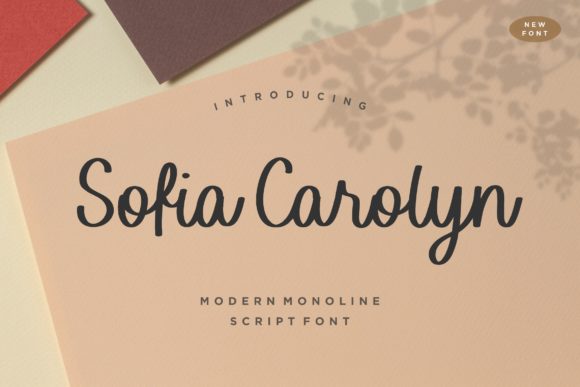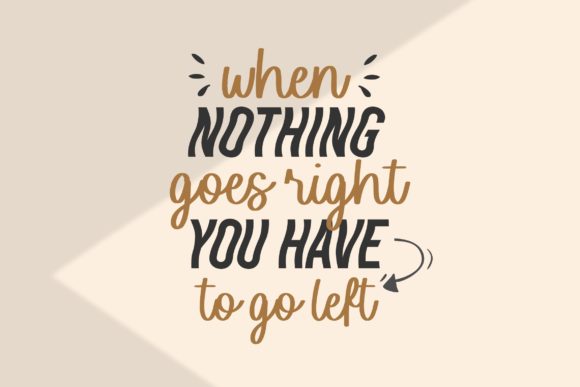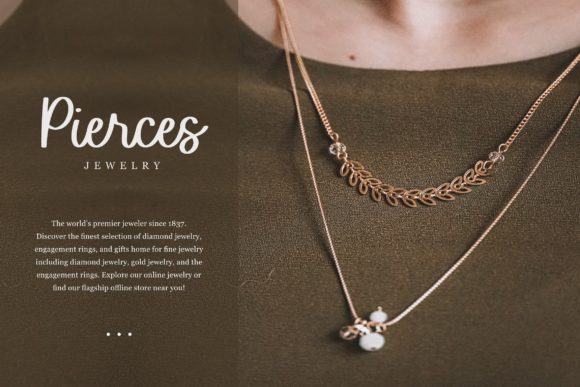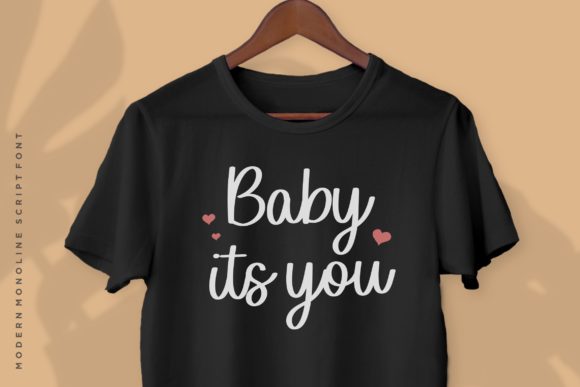
About Sofia Carolyn Font
Introducing “Sofia Carolyn,” a delicate and elegant handwritten font that brings a touch of sophistication to your designs. With its flowing letterforms and balanced characters, Sofia Carolyn is a versatile font that can be used in a wide range of projects.
The graceful curves and smooth lines of Sofia Carolyn exude elegance and refinement. Whether you’re designing wedding invitations, greeting cards, branding materials, or social media graphics, this font adds a touch of beauty and charm to any design.
The well-balanced characters of Sofia Carolyn ensure readability and legibility, making it suitable for both headlines and body text. It maintains a sense of clarity while retaining its delicate and flowing style, allowing your message to shine through.
Sofia Carolyn’s versatility shines through in its ability to match various design themes and styles. Whether you’re aiming for a romantic and whimsical look or a more sophisticated and modern aesthetic, this font adapts seamlessly to your creative vision.
The versatility of Sofia Carolyn extends beyond its style. It can be used in various design applications, including logos, branding, invitations, stationery, and more. Its refined and timeless appearance adds a touch of class to any project.
One of the strengths of Sofia Carolyn is its ability to evoke emotion and create a connection with the audience. Its delicate and flowing nature brings a sense of warmth and intimacy, making it perfect for personal projects and heartfelt messages.
Sofia Carolyn’s versatility and elegance make it a go-to choice for designers looking to add a touch of sophistication to their work. Whether you’re working on print or digital designs, this font is sure to enhance your creations and leave a lasting impression.
In summary, Sofia Carolyn is a delicate, elegant, and flowing handwritten font that adds a touch of sophistication to your designs. Its well-balanced characters and versatile style make it suitable for a wide range of projects. Fall in love with its beauty and create spectacular designs that captivate your audience.